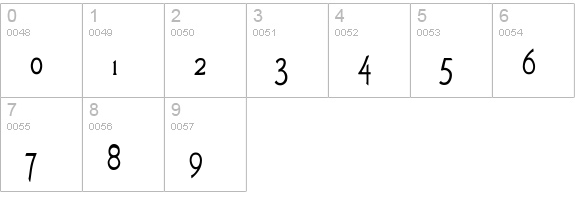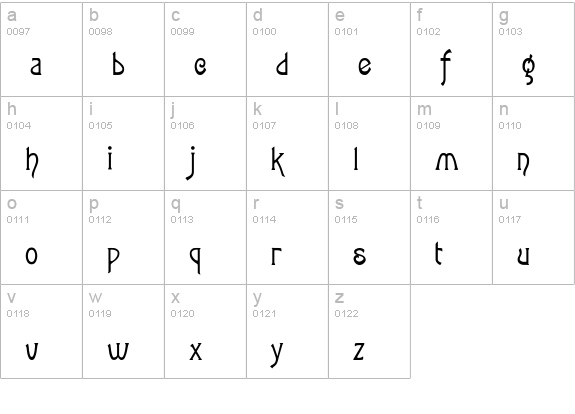
Fletcher-Gothic is a captivating and versatile font that effortlessly combines modernity with a touch of vintage charm. Its unique letterforms exude an air of sophistication and elegance, making it the perfect choice for a wide range of design projects, from branding and packaging to editorial layouts and signage. This font boasts a harmonious blend of bold lines and delicate curves, creating a visually striking appeal that commands attention. The clean and crisp contours of each character ensure legibility at any size, while the subtle decorative elements add a hint of personality and flair. Whether you're looking to create eye-catching headlines or add a touch of refinement to body text, Fletcher-Gothic is the ideal companion. Its extensive character set includes uppercase and lowercase letters, numerals, punctuation, and a selection of stylistic alternates, allowing you to effortlessly customize your design to perfection. What's even better is that Fletcher-Gothic is available for free download at FontsMarket.com. This means that you can enjoy the beauty and versatility of this remarkable font without having to spend a dime. Simply visit FontsMarket.com, locate the Fletcher-Gothic font, and indulge in its captivating aesthetic. Don't miss out on this incredible opportunity to elevate your designs with Fletcher-Gothic. Download this stunning font today and unlock a world of creative possibilities. Whether you're a professional designer or a passionate hobbyist, Fletcher-Gothic is sure to become an invaluable asset in your typographic arsenal.